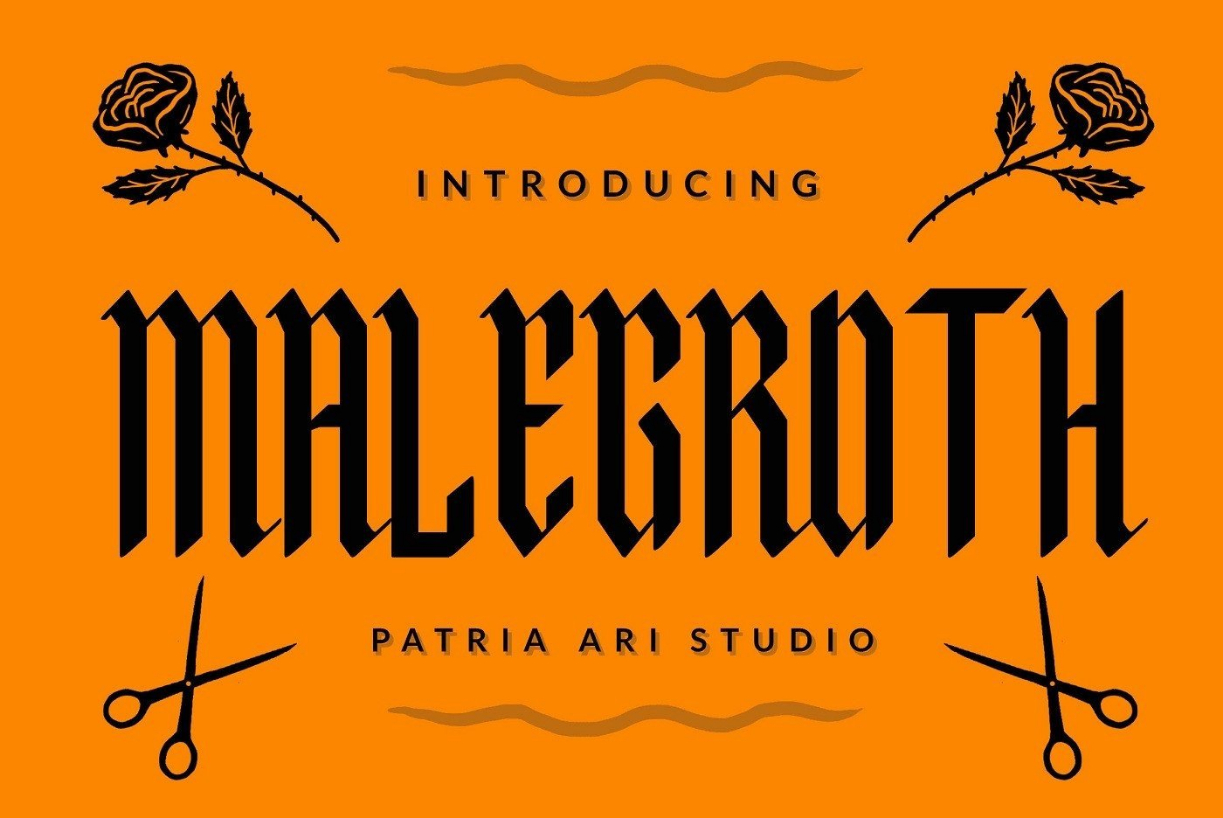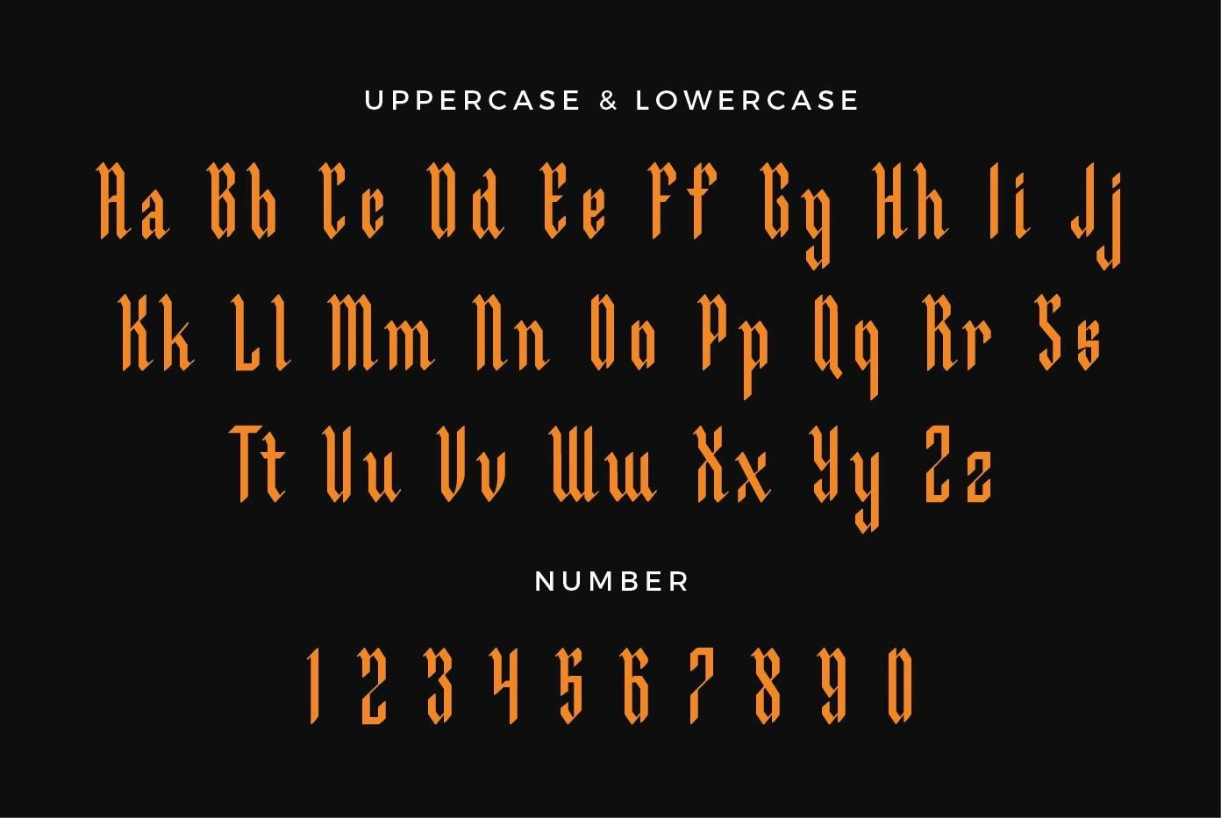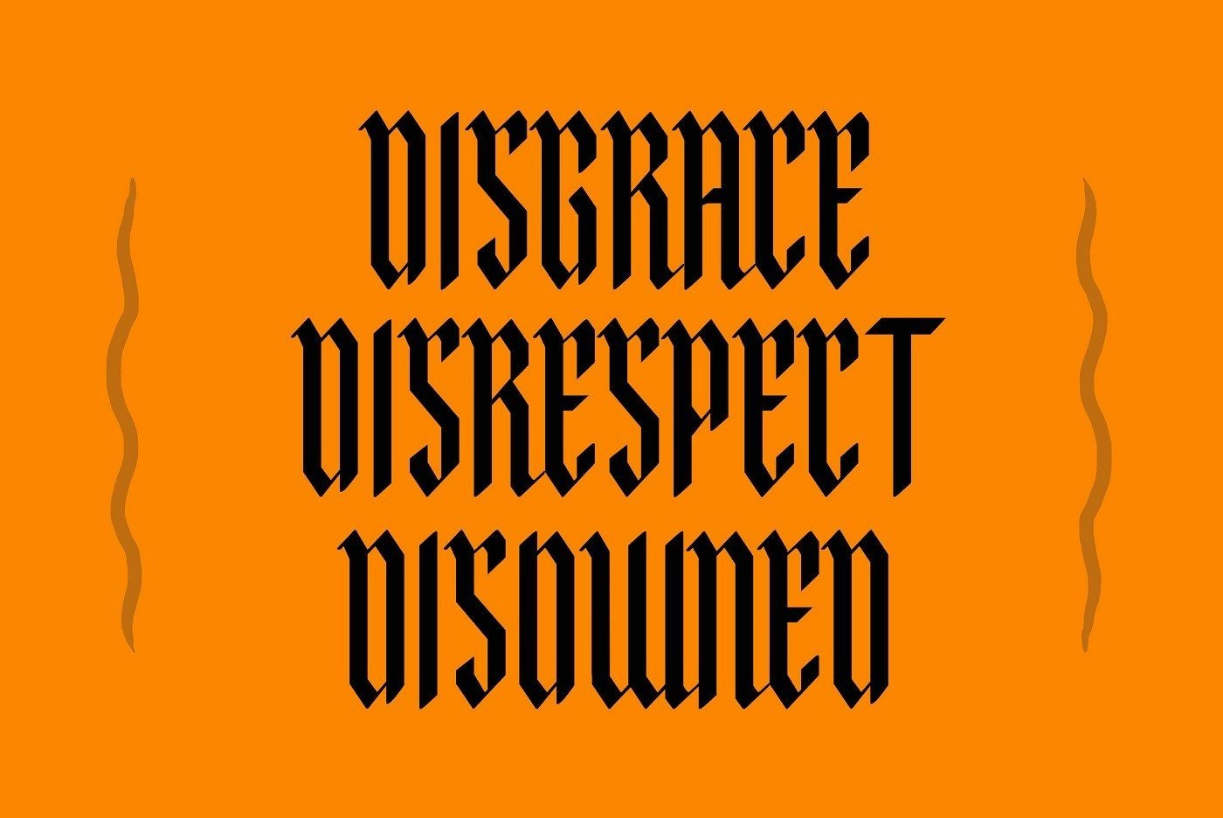
About Malegroth Font
Malegroth is a modern and fancy blackletter font, perfect for crafty projects that need stunning typography! Use it for urban-style designs, birthday cards, personal branding, tattoo-related logos, and more. Your designs will stand out!